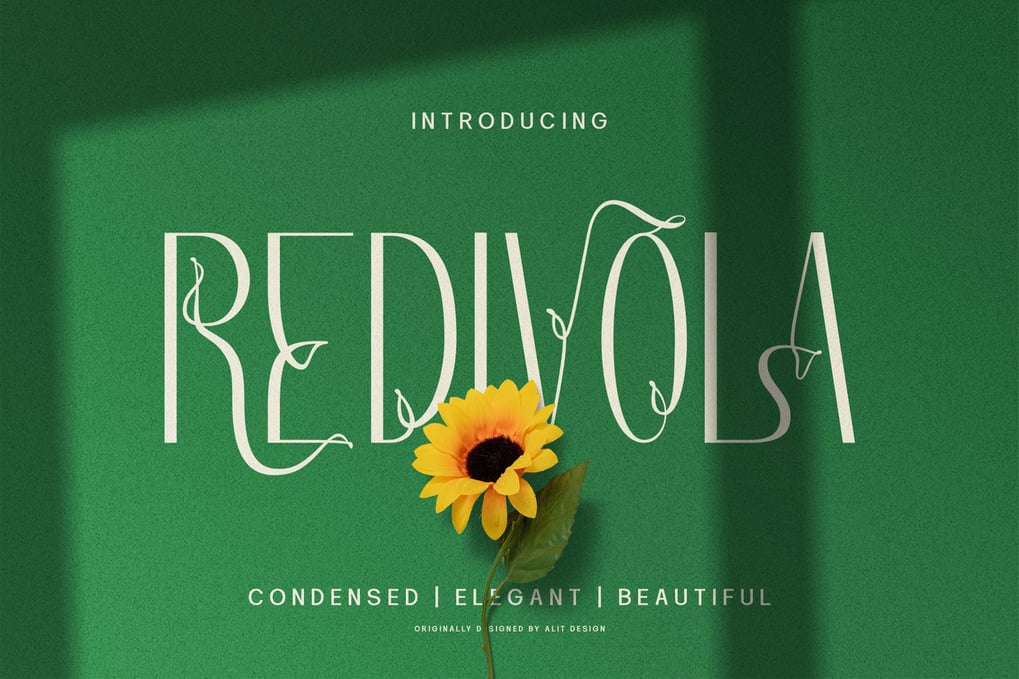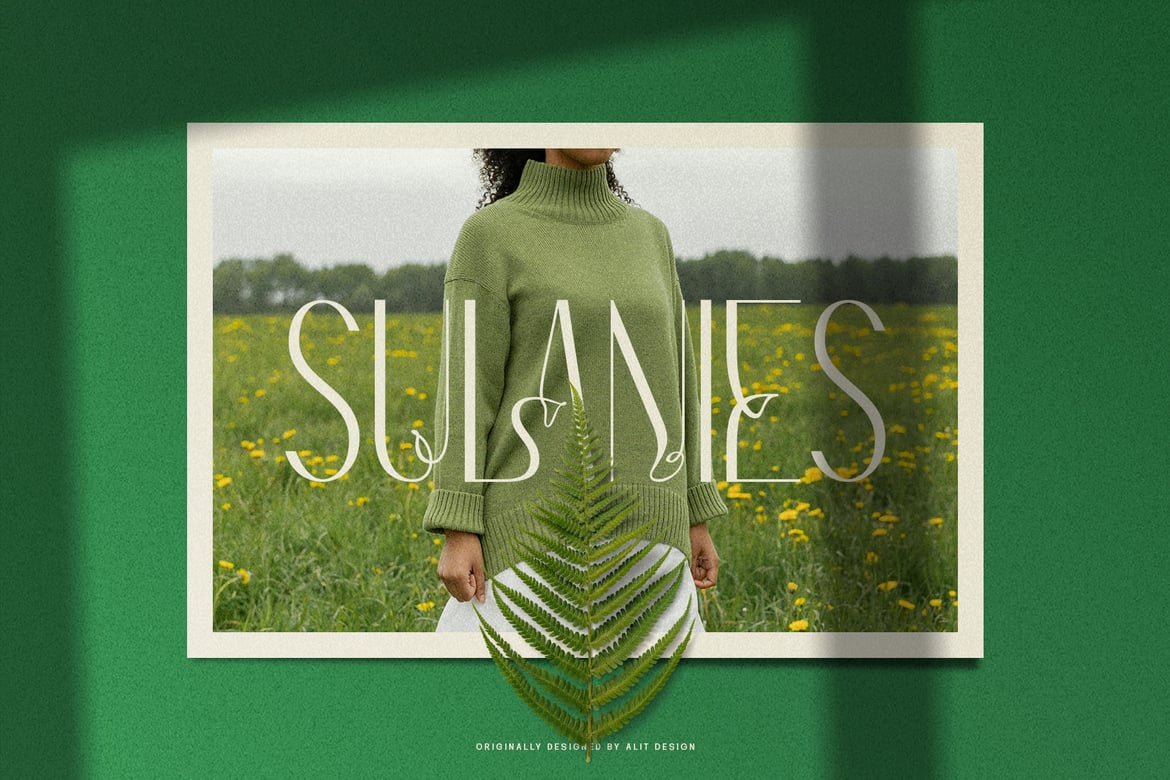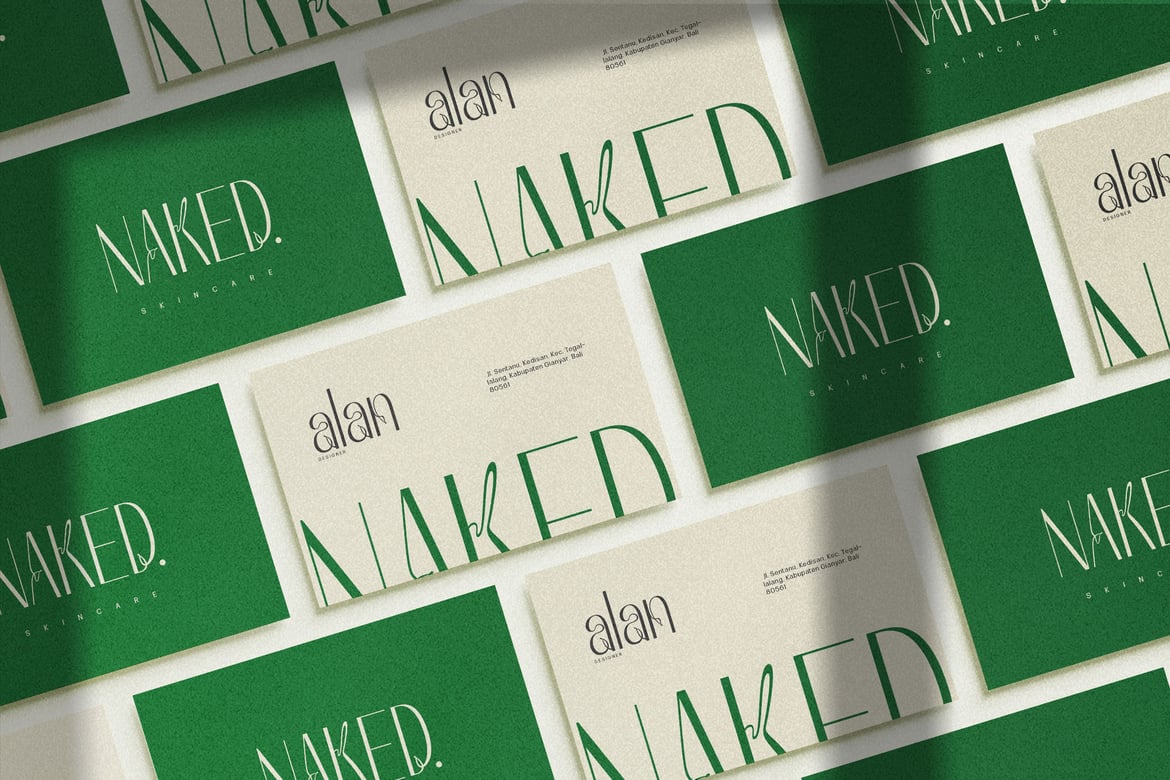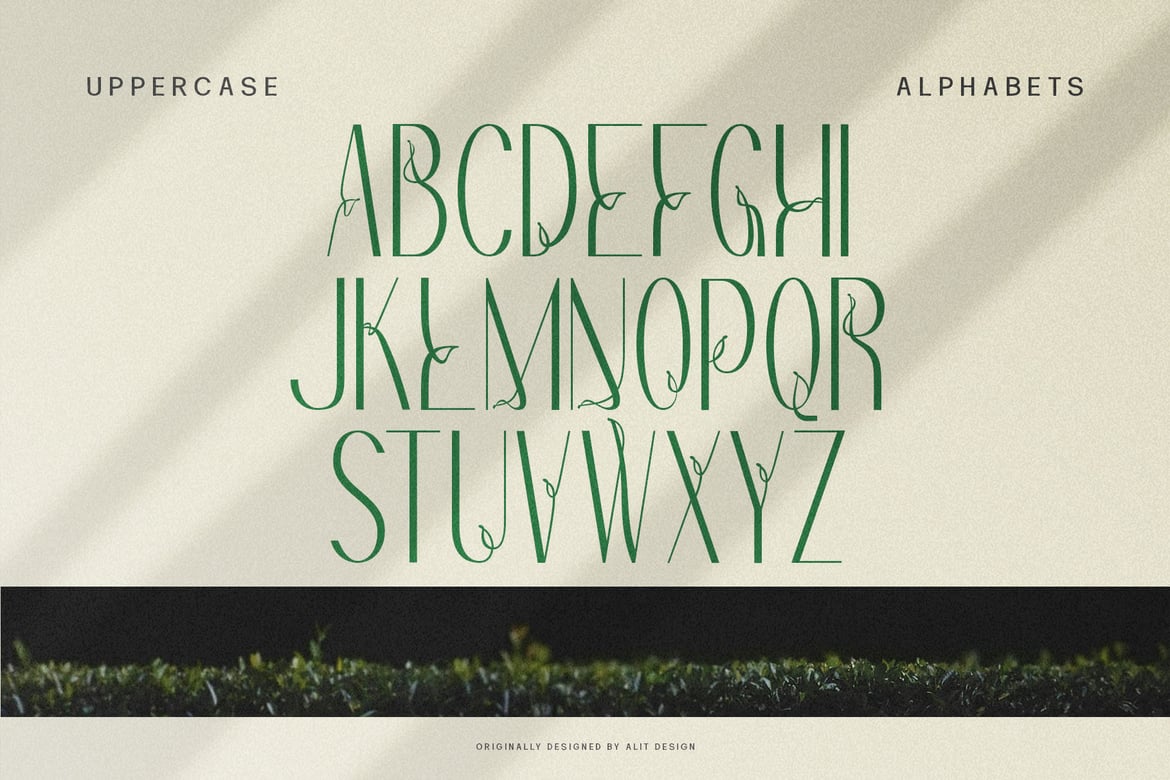
Redivola Typeface
Applications:
* Brand Identity: Enhance your brand’s visual identity with a typeface that exudes elegance and professionalism.
* Editorial Design: Bring sophistication to magazines, books, and digital publications with Redivola’s timeless appeal.
* Web Design: Ensure readability and aesthetic appeal on digital platforms with a font that looks stunning on screens of all sizes.
* Packaging: Create luxurious and eye-catching packaging designs that stand out on the